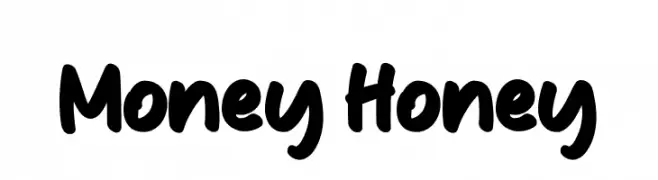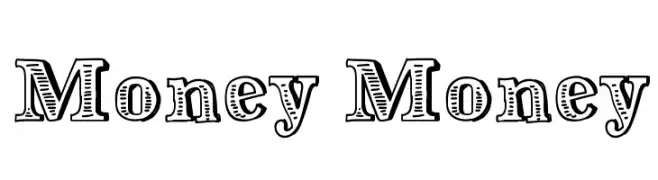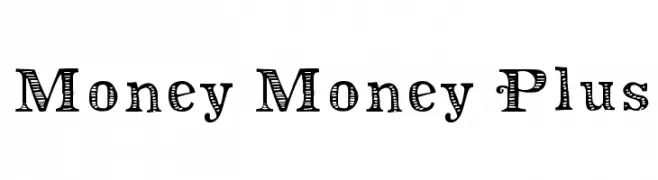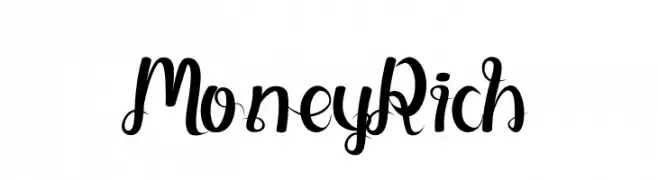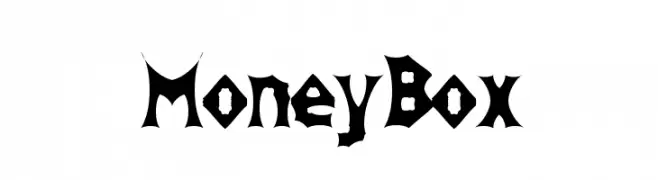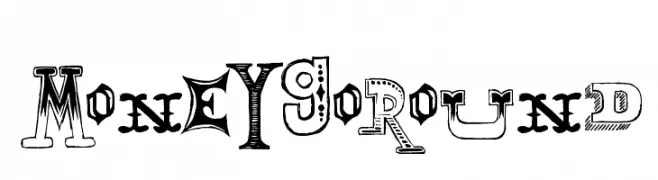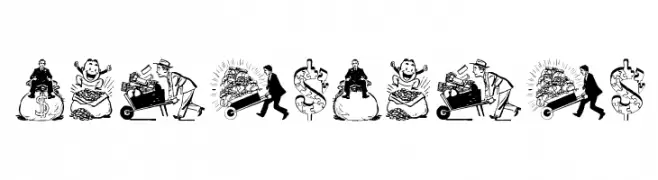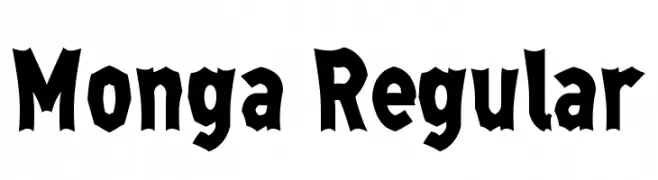
A bold, playful script font with a handwritten style.
A bold, decorative font with vintage flair and intricate detailing.
A decorative and playful font with vintage-inspired patterns and dots.
A playful and whimsical script font with elegant, flowing lines and loops.
A decorative and eclectic font with unique, artistic character designs.
A bold, high-impact display font with thick, blocky letters and unique horizontal line crossings.
A bold, condensed font with high contrast and a modern, impactful style.
Cartoonish, money-themed decorative font with detailed illustrations.